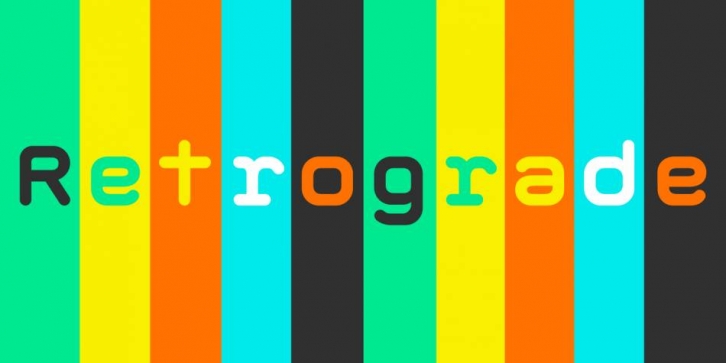
Designed by Tyler Finck, Retrograde is a sans serif font family. This typeface has two styles and was published by Tyler Finck.
It’s a monospace space font! This new typeface is round, simple, and crystal clear. It reproduces incredibly well at any size, and comes in Bold and Regular weights. Each character is the same width, across both weights, which makes applying it in a variety of tricky or special circumstances super easy. Retrograde is not intended for this world, but will work fine on this world. It’s creation has been a long time coming. My affinity for APOD, Blade Runner, SpaceX, Metroid, Alien, you name it, inspired me to create a font family fit for the future.